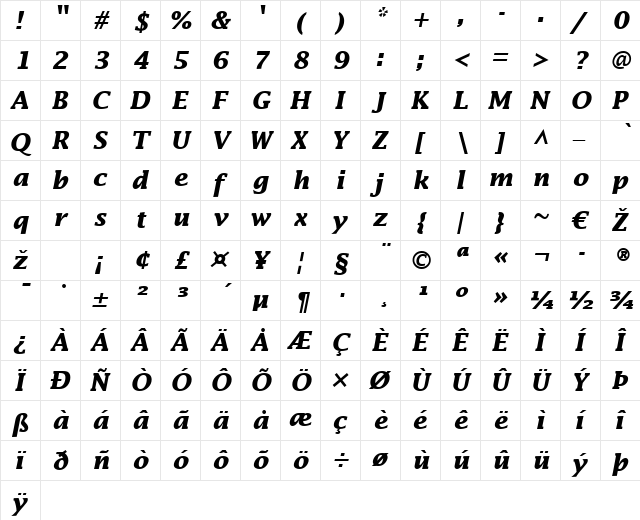
Lucida BoldItalic
Design Context for Lucida Typeface
Lucida takes a measured approach to typography — its balanced proportions and neutral character make it a reliable workhorse for both digital and print work. Its italic angle brings a sense of urgency and motion to the letterforms. The heavy weight commands attention and anchors typographic hierarchies.
Pro Tip: Use Lucida for emphasis, pull quotes, and subheadings where its slanted energy can add rhythm to the layout.